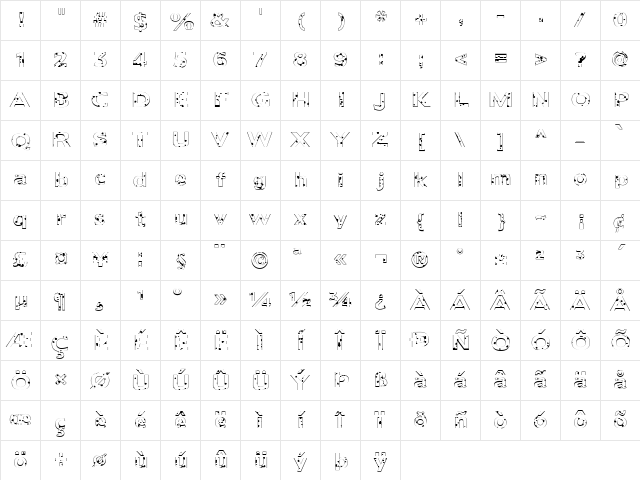
FZ BASIC 55 SPOTTED Normal
Design Context for FZ BASIC 55 SPOTTED
FZ BASIC 55 SPOTTED is a composed and adaptable typeface that performs quietly and consistently across a wide range of design contexts.